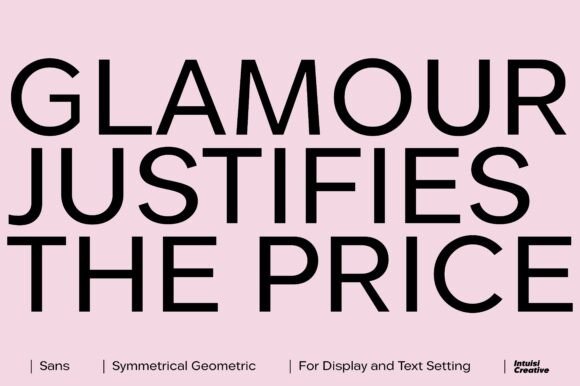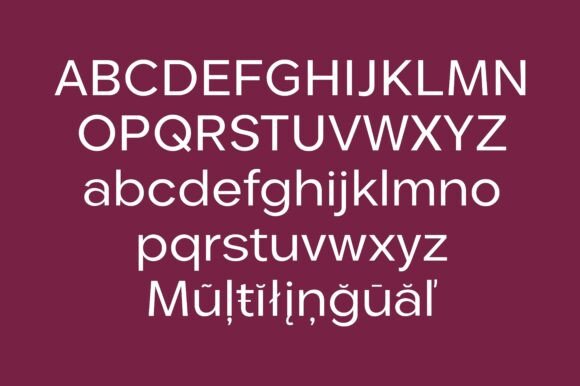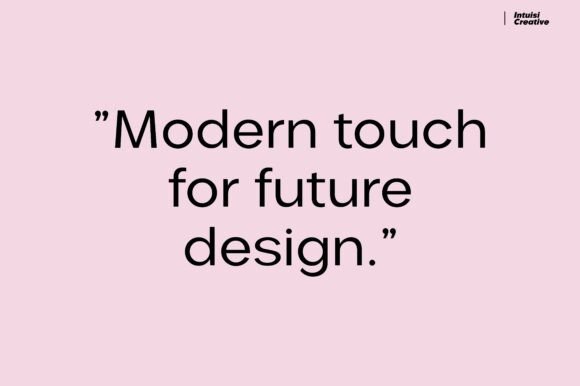
Glamure Font: Elevate Your Brand to New Heights of Luxury
In the world of typography, few fonts manage to convey the essence of luxury and sophistication as effortlessly as the Glamure Font. This meticulously crafted typeface is the epitome of elegance, designed to bring an air of refinement and opulence to any brand that dares to use it. From its striking contrasts to its graceful strokes, every detail of the Glamure Font screams high-end quality, making it the perfect choice for brands that want to make a lasting impression.
The Perfect Expression of High-End Branding
The Glamure Font is more than just a typeface – it’s a statement of luxury. Each character is carefully crafted to contribute to a sophisticated narrative that elevates your brand to new heights of prestige. Whether you’re a boutique owner looking to package your products in a way that exudes elegance, or an event planner seeking to create invitations that set the tone for an upscale affair, the Glamure Font is the perfect choice.
Elevate Your Packaging with Glamure Font
When it comes to packaging, the Glamure Font is irreplaceable. Its elegance and sophistication transform cosmetic labels, jewelry packaging, and other luxury goods into a seamless blend of beauty and refinement. Imagine your products standing out on store shelves, with each label and package exuding an air of high-end quality that draws customers in. With the Glamure Font, you can create a lasting impression that sets your brand apart from the competition.
Create Sophisticated Invitations with Glamure Font
Invitations are often the first glimpse into the luxury and sophistication of an event, and the Glamure Font is the perfect way to set the tone. Each letter is a masterpiece of elegance, serving as the perfect prelude to an upscale affair. Whether you’re planning a high-end wedding, a charity gala, or a luxurious product launch, the Glamure Font will add a touch of refinement and sophistication to your invitations that will leave a lasting impression on your guests.
Heighten Your Brand’s Identity with Glamure Font
In today’s competitive market, a brand’s identity is everything. The Glamure Font offers a unique opportunity to add a tangible element of value and transcendence to your brand. By incorporating this luxurious typeface into your branding, you can create a sense of exclusivity and sophistication that resonates with your target audience. Whether you’re looking to rebrand or refresh your existing identity, the Glamure Font is the perfect choice.
Why Choose Glamure Font?
So why choose the Glamure Font over other typefaces? Here are just a few reasons why designers and crafters alike are falling in love with this luxurious font:
- Elegance and sophistication: The Glamure Font exudes refinement and opulence, making it perfect for high-end branding and luxury goods.
- Versatility: From packaging to invitations, the Glamure Font can be used in a variety of contexts to elevate your brand’s identity.
- Attention to detail: Each character is meticulously crafted to contribute to a sophisticated narrative that sets your brand apart.
- Unique and exclusive: The Glamure Font is a one-of-a-kind typeface that will add a touch of exclusivity to your brand.
| Font Name | Glamure Font |
| Author | IntuisiCreative |
In conclusion, the Glamure Font is a game-changer for designers and crafters looking to elevate their brands to new heights of luxury. With its elegance, sophistication, and attention to detail, this typeface is the perfect expression of high-end branding. Whether you’re looking to create luxurious packaging, sophisticated invitations, or a refined brand identity, the Glamure Font is the perfect choice. So why settle for ordinary when you can have extraordinary? Choose the Glamure Font today and discover the epitome of luxury.